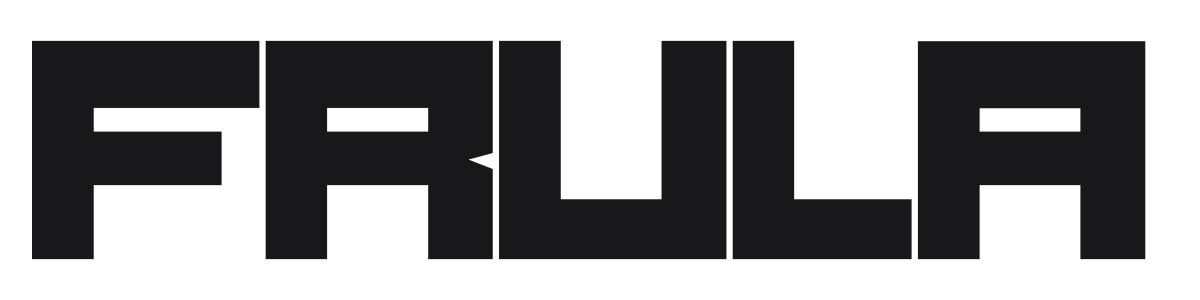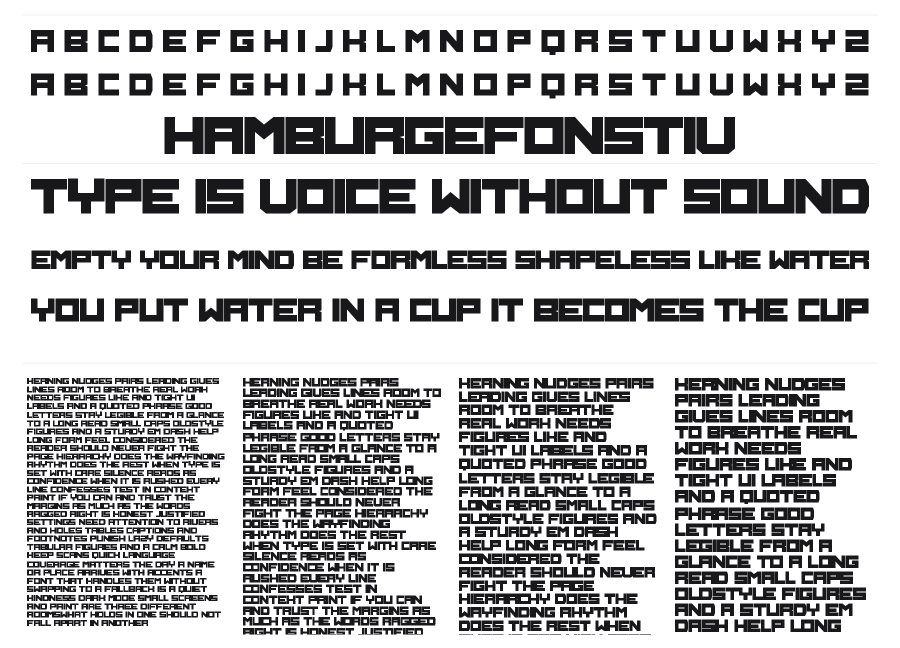
Frula
Frula is a heavy square techno display font built entirely from rectangular blocks with no curves and hard 90-degree corners. Every stroke is uniform weight, and notched junctions give it a modular, almost circuit-board quality. It commands attention at large sizes and reads as unapologetically mechanical.